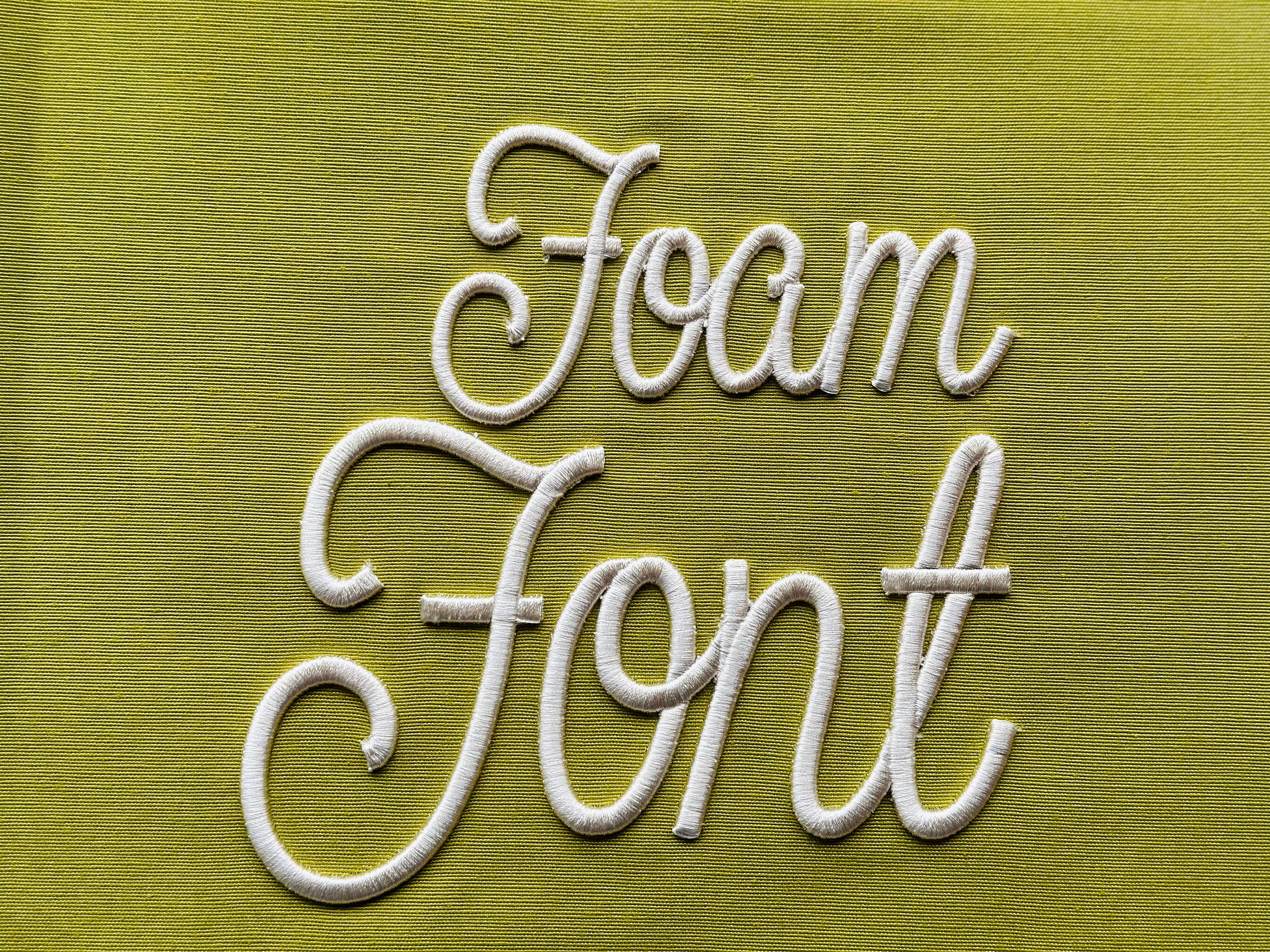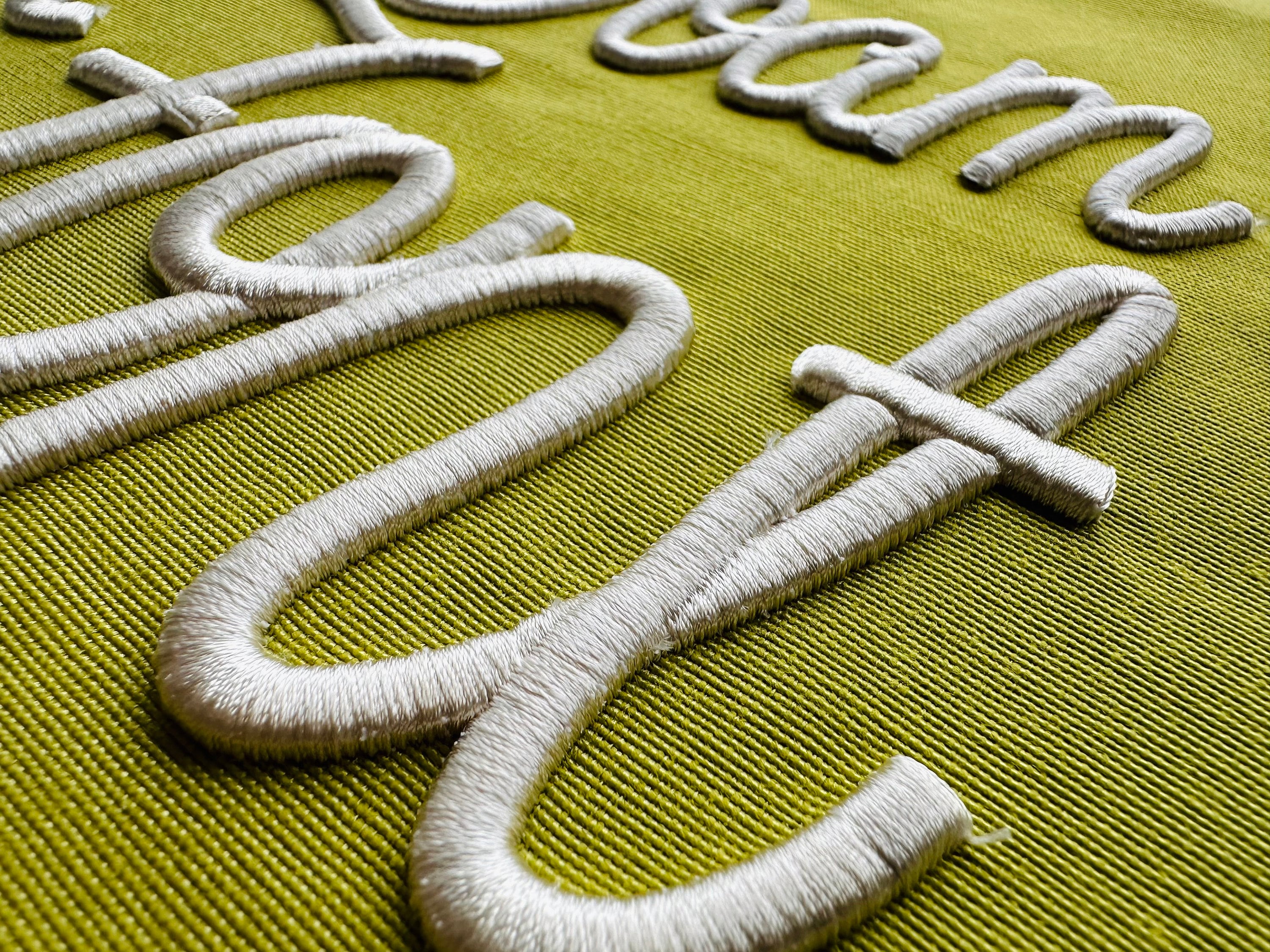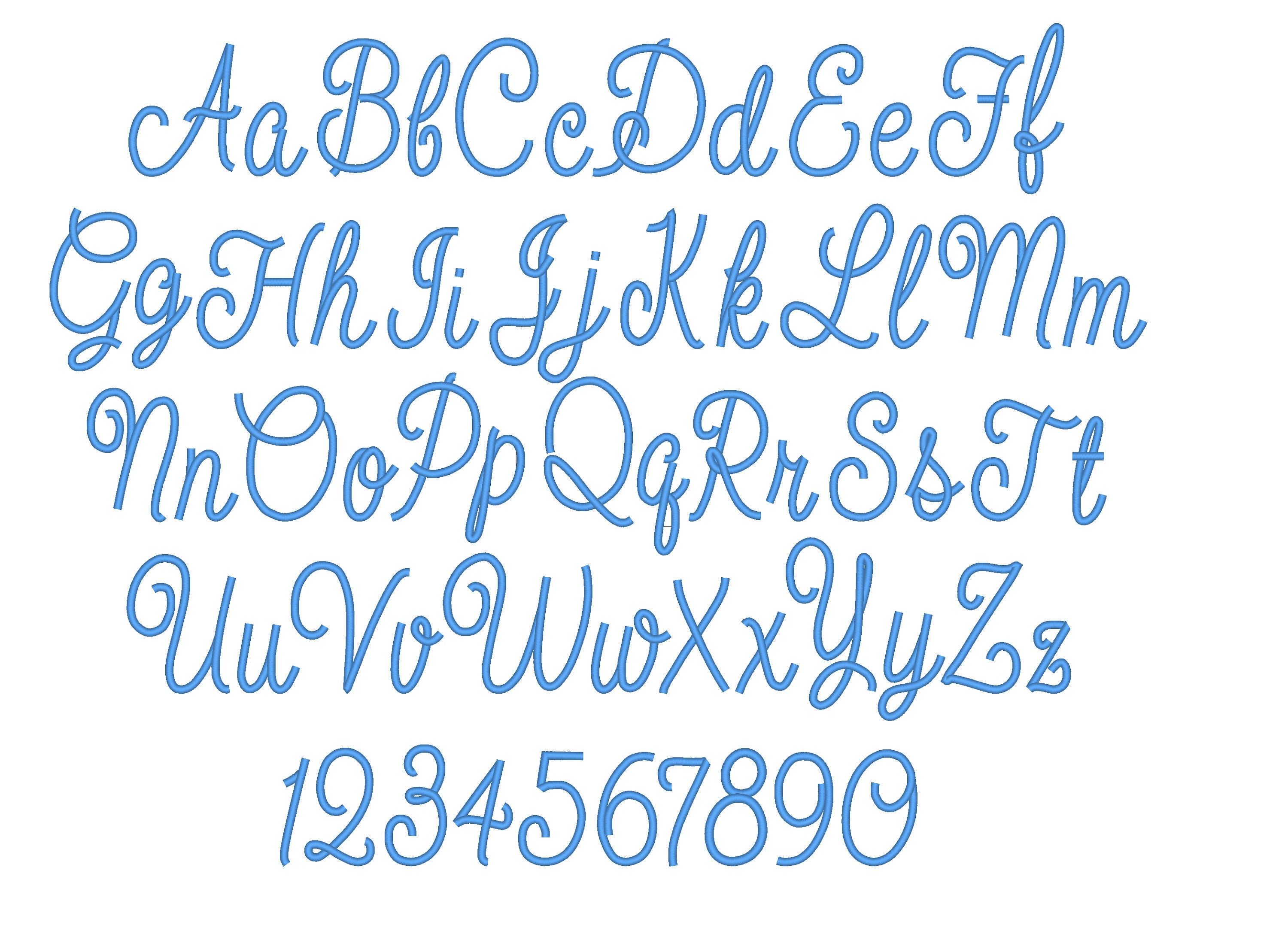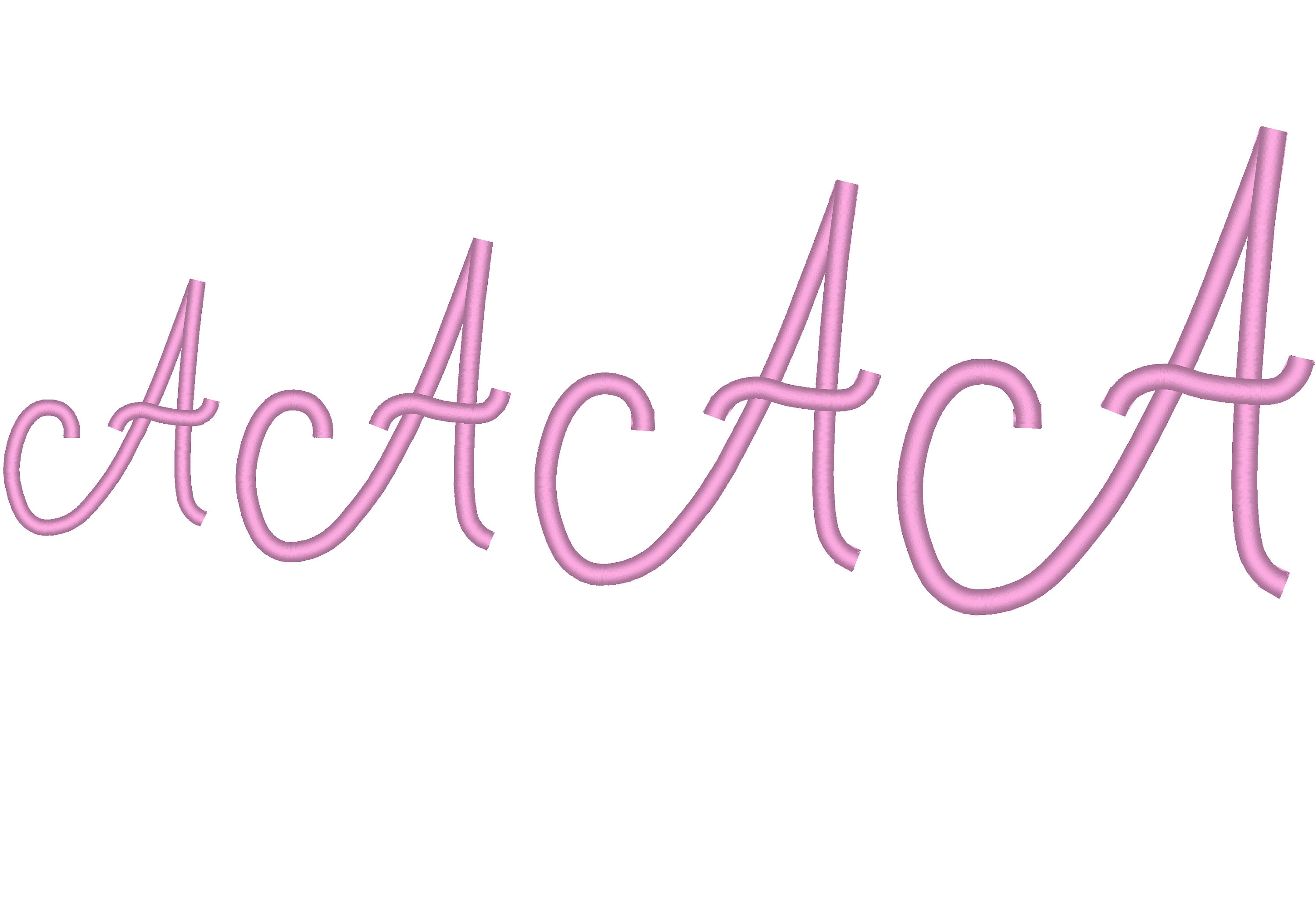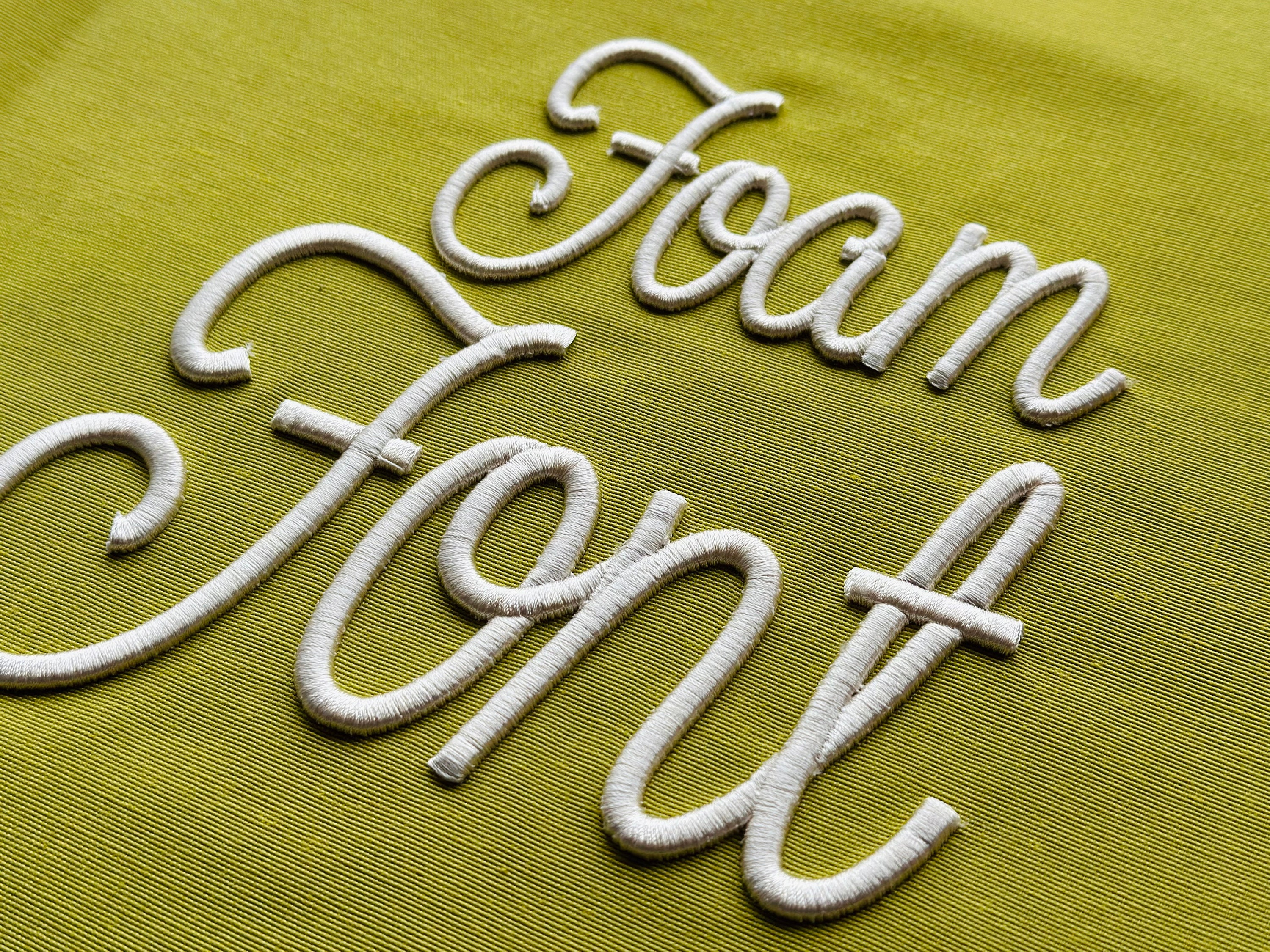
Puff Embroidery font machine embroidery designs 3D raised puffy foam alphabet 2.5, 3, 4 and 5 inches monogram handwritten script font, BX
Whole alphabet A-Z uppercase and lowercase letters, and numbers 0-9
love the way this stitched out.
I had fun with this font